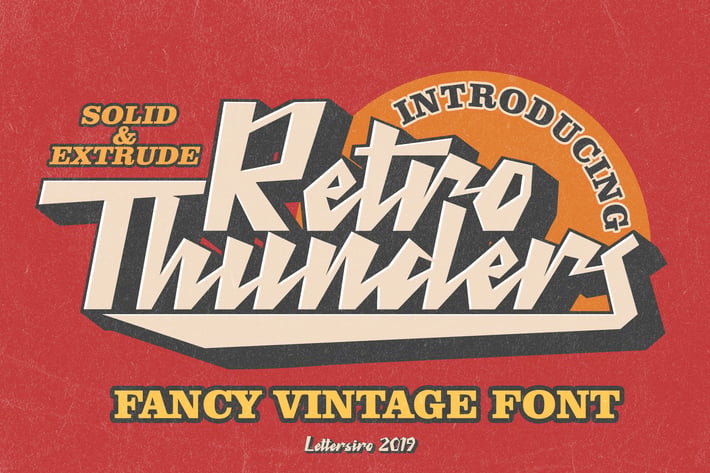
Retro Thunders - Retro Font
Hi There ! This is our newest product, inspiride by retro style. We call this font "Retro Thunders".
Retro Thunders is perfect for any retro project, poster, logo, label, clothing, music album cover, and many others.
Comes with solid and extrude style, you can use this font easily, and make save a lot of your time in creating.
- Opentype Features : swash, ligatures, stylistic alternate, ss01, ss02 , ss03
- 8 end swashes
- Basic Latin Language SUpport